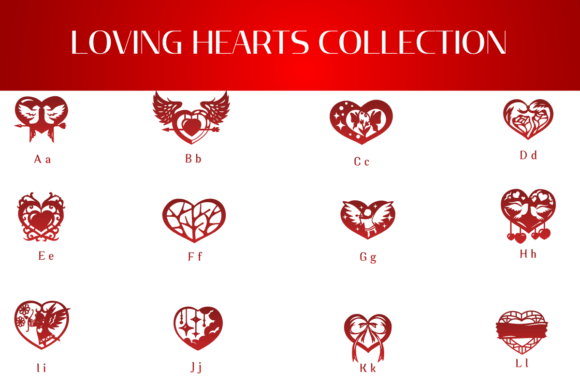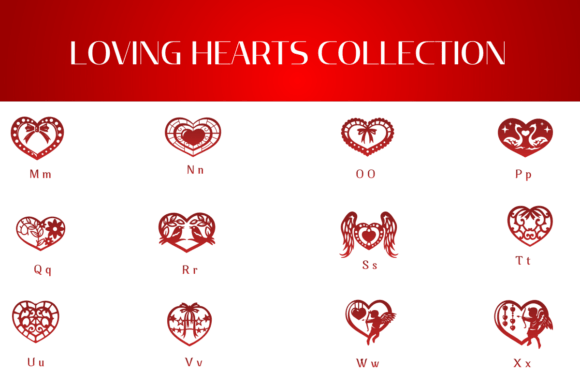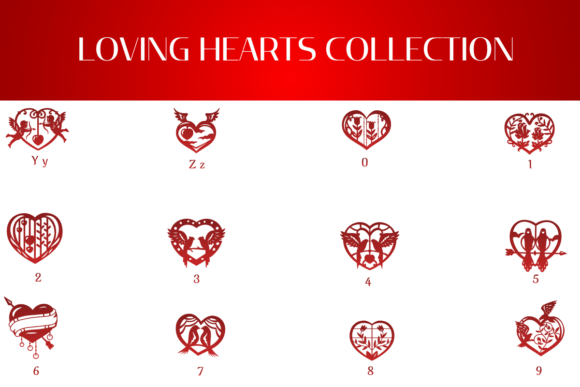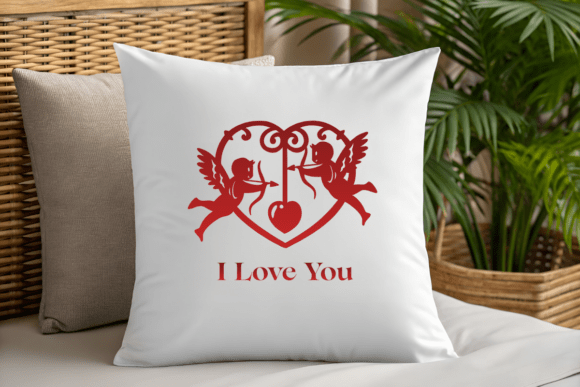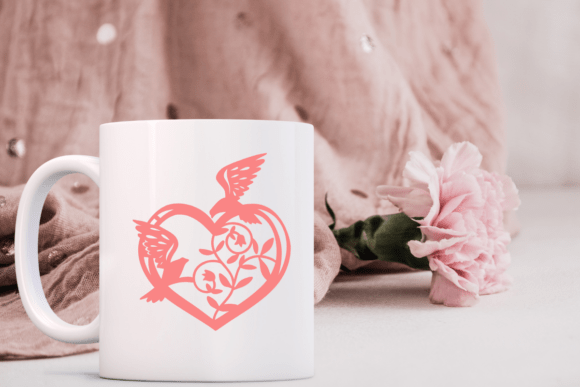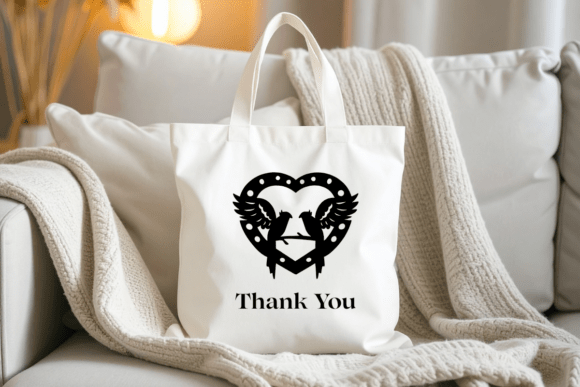
Introduction to Loving Hearts Collection Font
As you sit at your desk, surrounded by scraps of paper, sketches, and half-finished projects, you stumble upon the perfect design inspiration. A delicate heart silhouette catches your eye, and suddenly, your creative juices start flowing. You imagine a beautiful wedding invitation, a heartfelt Valentine’s Day card, or a stunning digital scrapbook. The possibilities are endless, and that’s where the Loving Hearts Collection Font comes in – a stunning collection of intricate dingbats designed to elevate your most heartfelt projects.
This high-quality design resource is more than just a font – it’s a toolkit for visual storytelling that speaks the universal language of love. With a variety of ornate heart silhouettes, including delicate floral cutouts, Cupid’s arrows, angelic wings, and Victorian-style lace patterns, you’ll find the perfect illustration to bring your creative project to life. And the best part? The Loving Hearts Collection Font is available for free download, making it an accessible design resource for designers of all levels.
Whether you’re looking to add a romantic touch to your social media graphics, create custom laser cutting designs, or craft unique vinyl decals, the Loving Hearts Collection Font is an invaluable asset. Its transparent background makes it easy to pair with any design, and its versatility ensures that it will become a go-to resource for your most creative projects.
Key Features of Loving Hearts Collection Font
- Comprehensive collection of loving hearts icons, suitable for a variety of applications, including digital art, print media, and web design.
- Transparent background, allowing for seamless integration with any design or image.
- Each icon is carefully crafted with high-resolution details, ideal for use in large-scale designs or print media.
- Extensive collection of loving hearts icons, including various styles, sizes, and orientations, to cater to diverse design needs.
- Perfect for designers, artists, and creators seeking a unique and visually appealing design element for their next project.
Honest Review: Loving Hearts Collection Font
I recently had the opportunity to work with the Loving Hearts Collection Font, and I must say, it’s been a delightful experience. The font itself is a beautiful addition to any design project, offering a high quality aesthetic that’s perfect for creative endeavors.
One of the standout features of this font is its transparent background, which makes it incredibly easy to work with. The transparent background also allows for seamless layering and editing, making it a fantastic resource for designers.
Here are some of the things that work well with the Loving Hearts Collection Font:
- ✨ High-quality aesthetic that elevates any design project
- ✨ Easy to use and manipulate due to its transparent background
- ✨ Perfect for creating a range of design assets, from logos to social media graphics
However, I did encounter a few limitations with the font. For example:
- ⚠️ Limited customization options, which may not be ideal for more complex design projects
- ⚠️ Some users may find the font’s design to be a bit too sweet or cutesy, depending on their personal style
Overall, I’m quite impressed with the Loving Hearts Collection Font. It’s a great addition to any design resource library, and I would highly recommend it to designers looking for a high-quality, free download font.